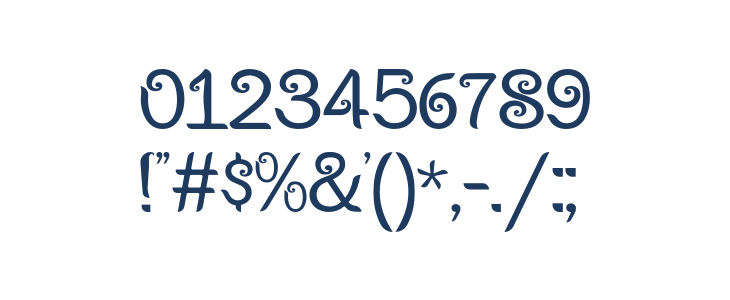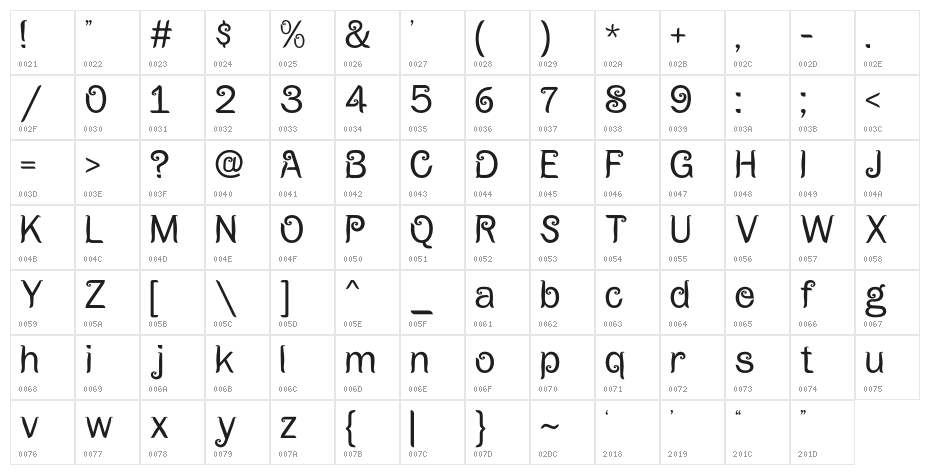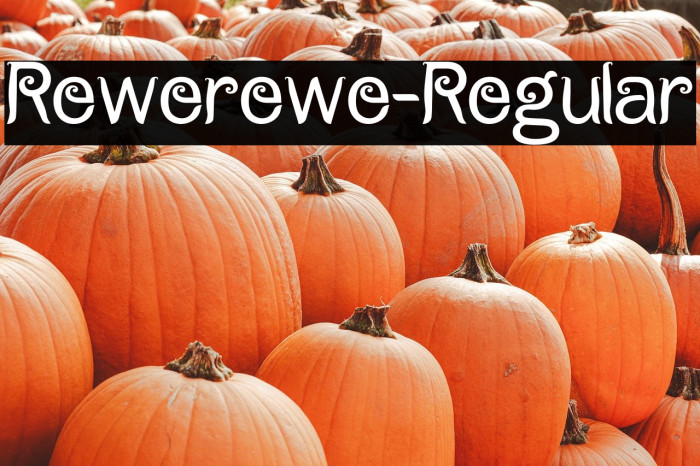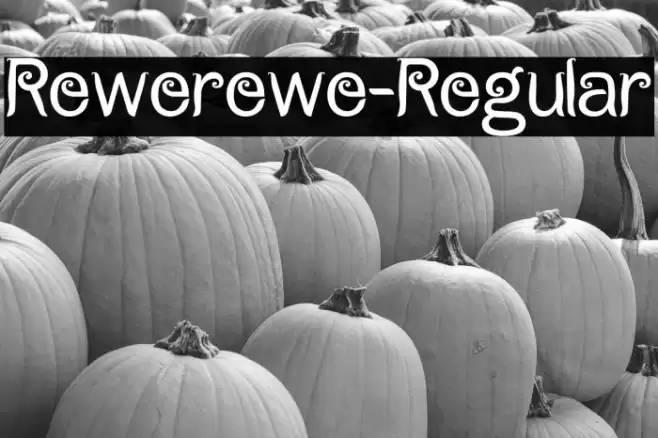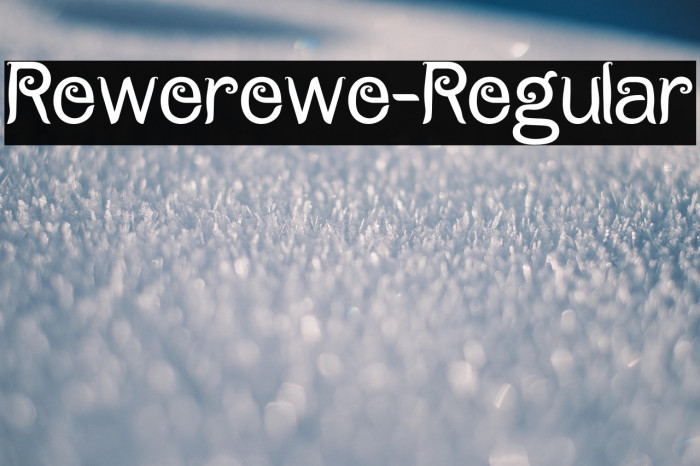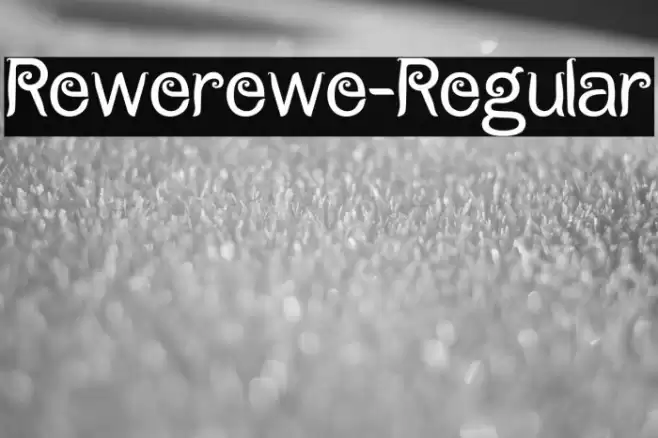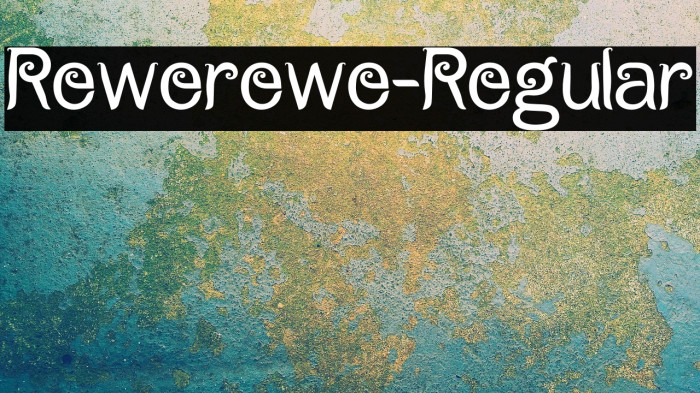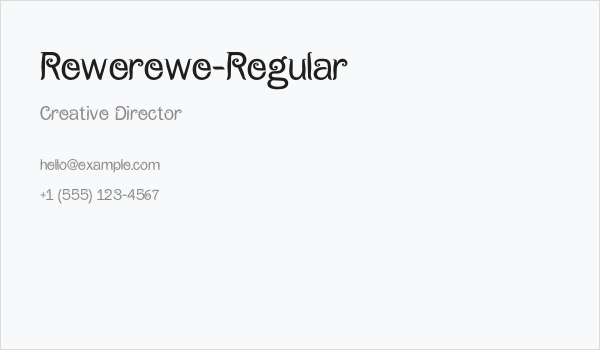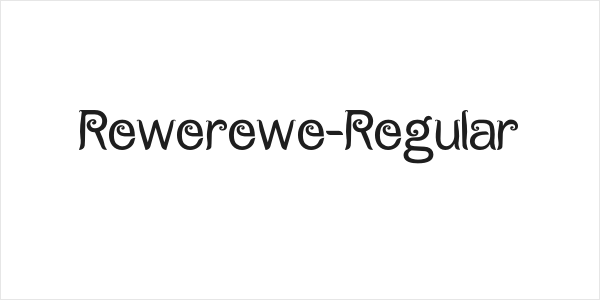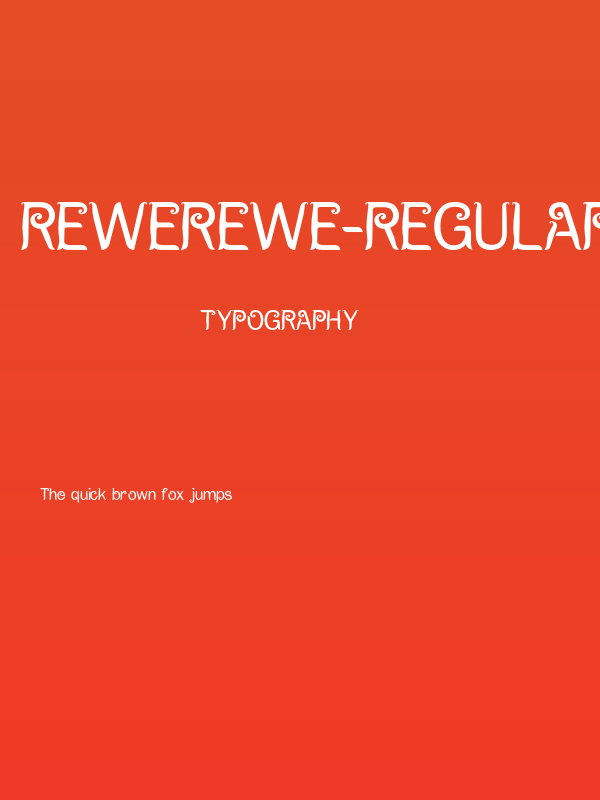
Rewerewe-Regular Font
Rewerewe-Regular Description
This font features a unique and playful design with a whimsical touch. The characters have a distinct curvy and flowing style, giving them a lively and dynamic appearance. The uppercase letters are bold and prominent, while the lowercase letters maintain a consistent flow with slightly exaggerated curves. Numbers and special characters follow the same playful theme, making the font suitable for creative and artistic projects. The overall design is eye-catching and stands out due to its decorative elements, making it ideal for attention-grabbing headlines and titles.
| Proposed Projects | Ideal for children's books, creative posters, playful branding, and artistic invitations. |